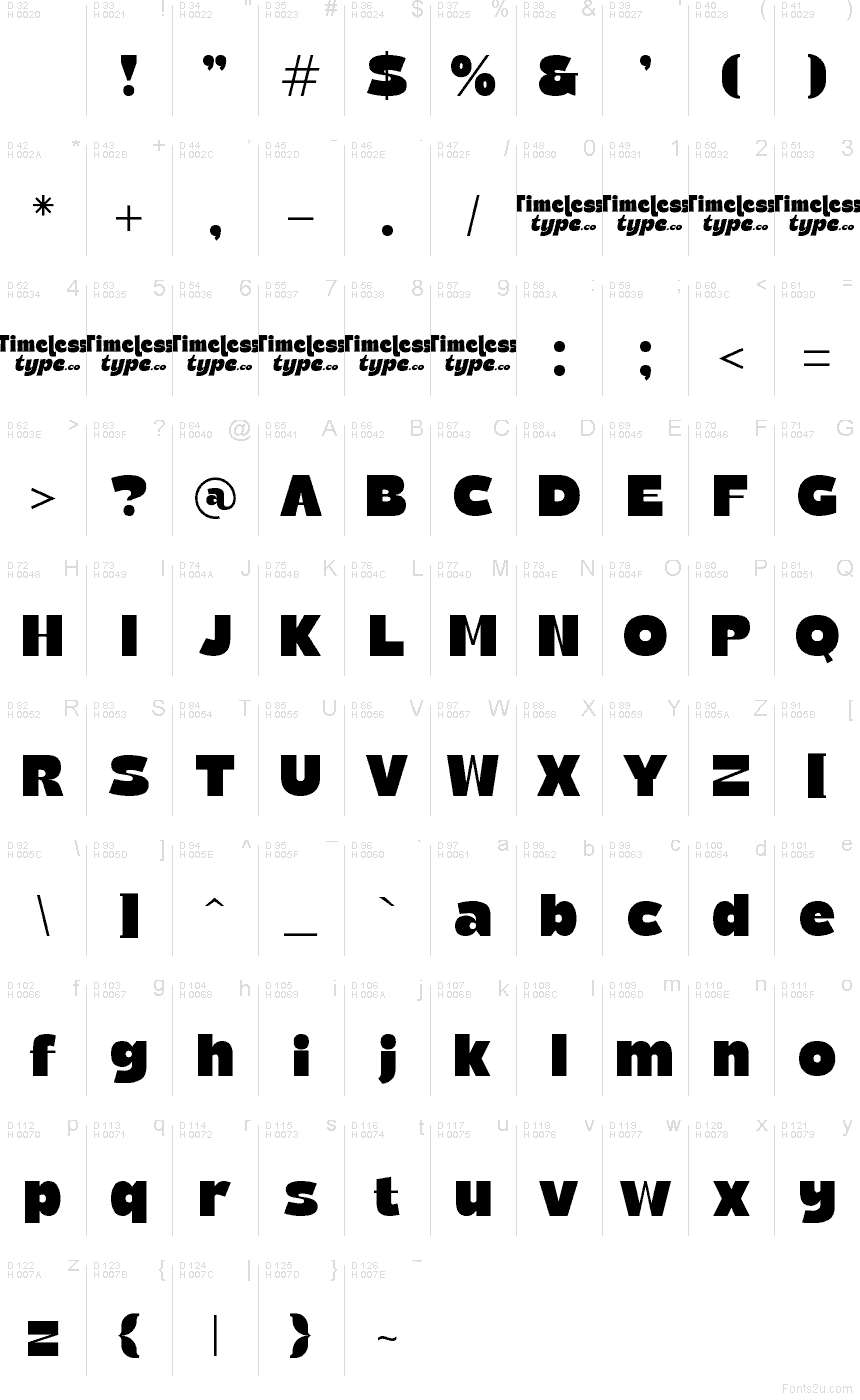
Bocktail, by TimelessType.co, is a free chunky geometric sans serif with a cheeky retro feel. The letters are built from big, near-circular forms and hard wedges, giving the font a soft-but-punched rhythm that feels closer to bold 1970s signage than a neutral sans.
It fits naturally in beverage labels, cafe branding, poster headlines, music cover lines, and title cards where a short word needs real shape on the page. As a free font, Bocktail also works for logos and monograms, because those squat curves and abrupt cuts make even a few letters feel graphic and self-contained.